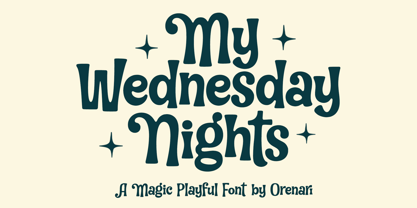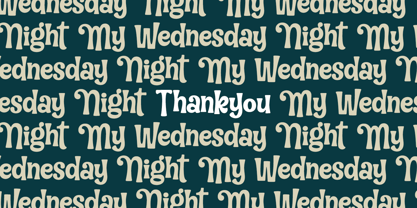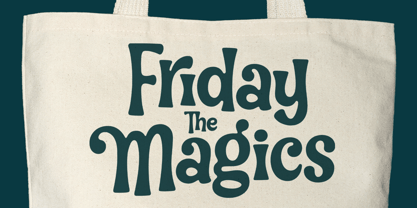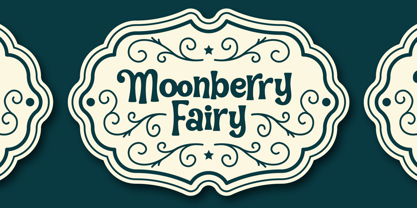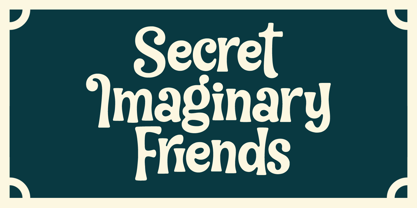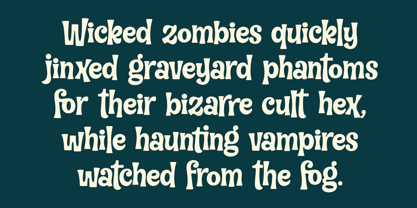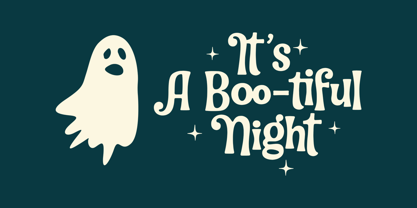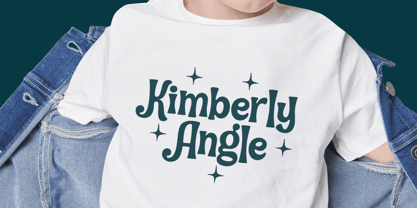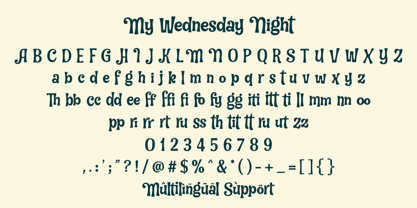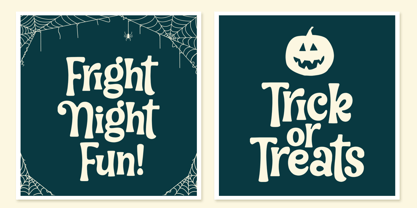
My Wednesday Nights
by Orenari
The My Wednesday Nights Font Family was designed by Lia Wijayanti and published by Orenari. My Wednesday Nights contains 1 styles. More about this family
My Wednesday Night is a magic playful font by Orenari that brings a unique twist to the world of display typefaces. Combining elements of fun, quirkiness, and a touch of eerie charm, this font captures the balance between lighthearted playfulness and mysterious horror vibes. It’s not just a typeface—it’s a storytelling tool designed to add personality, mood, and a sense of atmosphere to your creative projects.
The shapes of My Wednesday Night are bold and rounded, yet uneven in a way that feels hand-drawn and alive. The letters curve, bounce, and sometimes wobble, as if they’re characters in a story of their own. This organic quality makes the font feel approachable and friendly, while its exaggerated details and whimsical proportions give it an unmistakable spooky undertone. It’s the kind of font that looks like it could belong in a magical children’s tale, a Halloween poster, or a playful branding concept that doesn’t take itself too seriously.
The inspiration behind My Wednesday Night lies in the blend of magical fantasy and playful horror. Imagine an evening where shadows dance across the walls, where strange shapes flicker in candlelight, and where laughter mixes with whispers in the dark—that’s the spirit captured in this font. It’s not frightening in a grim way; instead, it’s the kind of spooky that makes you smile, like watching a charmingly eerie animated movie or reading a mysterious bedtime story.
Practicality meets creativity with My Wednesday Night. The font works beautifully in large display settings, where its quirky letterforms can shine with full impact. Titles, headers, and logos are natural fits, but it also brings personality to packaging design, editorial layouts, merchandise, greeting cards, and digital content. The playful horror vibe makes it especially perfect for Halloween invitations, trick-or-treat signage, spooky event posters, children’s book covers, or whimsical branding projects.
One of the key strengths of this font is its versatility. Despite its strong character, My Wednesday Night adapts to both fun and eerie contexts depending on how you use it. Pair it with bright, playful colors and it feels magical and cartoonish; pair it with darker, moody tones and it transforms into something mysterious and haunting. This duality allows designers to explore a wide range of creative directions without switching typefaces.
As part of Orenari’s creative journey, My Wednesday Night carries the hallmark of imaginative typography—fonts that don’t just serve as text but act as part of the design’s storytelling. Every curve and stroke has been carefully crafted to ensure readability while maintaining its playful eccentricity. Whether you’re designing for print or digital, the font retains its charm and clarity.
To sum it up, My Wednesday Night is more than just a horror-themed font—it’s a celebration of imagination, magic, and play. It embraces its quirks and imperfections, turning them into strengths that make your design stand out. If you’re looking for a typeface that can bring both whimsy and spooky charm into your work, this is the perfect choice.
Bring your words to life with My Wednesday Night—a font that turns every project into a story, and every story into an experience.
Designers: Lia Wijayanti
Foundry: Orenari